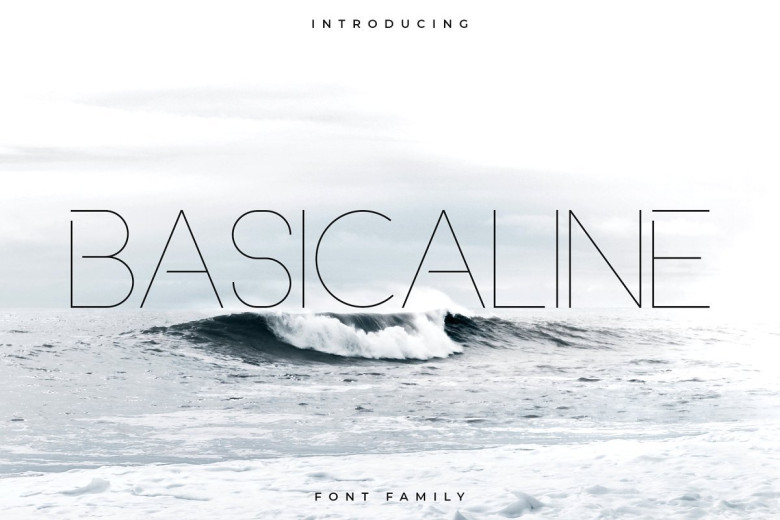
Basicaline Font Family
This is a minimal rounded sans serif typeface that looks beautiful in every context. Introducing Basicaline Typeface. Basicaline is an elegant and clean sans serif font. It’s a versatile font family designed for strong, classic branding. Basicaline works great in any branding, logos, magazines, videos, product packaging, website headers, clothing designs and much more.